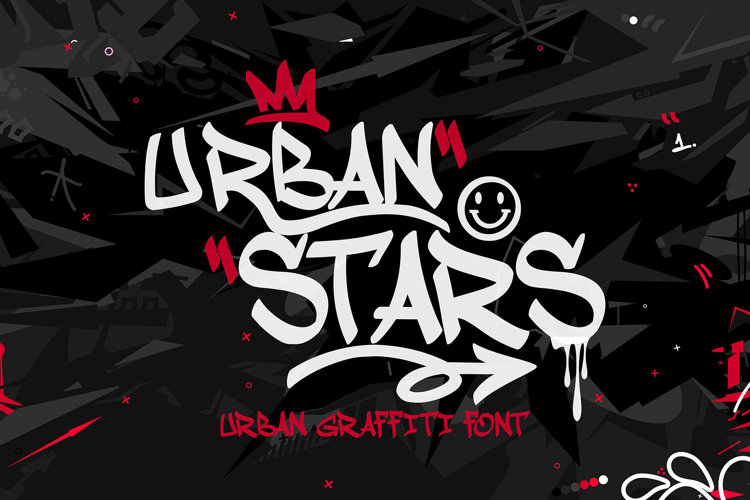
Urban Stars - Graffiti Tag Font
Introducing Urban Stars – the quintessential Graffiti Tag Font that brings the raw energy and authentic vibe of street art to your designs. Perfectly capturing the essence of urban culture, Urban Stars is designed to make your projects stand out with a bold, edgy, and stylish flair.
🌆 Authentic Street Vibes: Urban Stars embodies the spirit of the streets with its dynamic and expressive letterforms. Each character is inspired by real graffiti tags, delivering an authentic and gritty aesthetic that resonates with urban culture enthusiasts.
🎨 Bold and Edgy: With its striking lines and dramatic strokes, Urban Stars makes a powerful statement in any context. Whether you're designing posters, album covers, or merchandise, this font ensures your message is delivered with a punchy and rebellious attitude.
🖌️ Versatile Design: Urban Stars is incredibly versatile, making it suitable for a wide range of creative projects. From street art branding and music promotion to event posters and social media graphics, this font adds a unique and captivating edge to your designs.
🌟 Eye-Catching Appeal: Designed to grab attention, Urban Stars stands out with its bold and dynamic look. Its unique style draws the eye and engages viewers, making it an excellent choice for headlines, titles, and other elements that need to command attention.
🖋️ Meticulously Crafted: Each letter in Urban Stars is carefully crafted to ensure high readability and visual impact. The intricate details and artistic flair of the font make it a standout choice for designers who want to infuse their work with creativity and authenticity.
Bring the urban jungle to your designs with Urban Stars – the Graffiti Tag Font that exudes the energy and spirit of street art. Perfect for making bold, eye-catching statements, Urban Stars is your go-to font for projects that need a dose of urban authenticity and style.